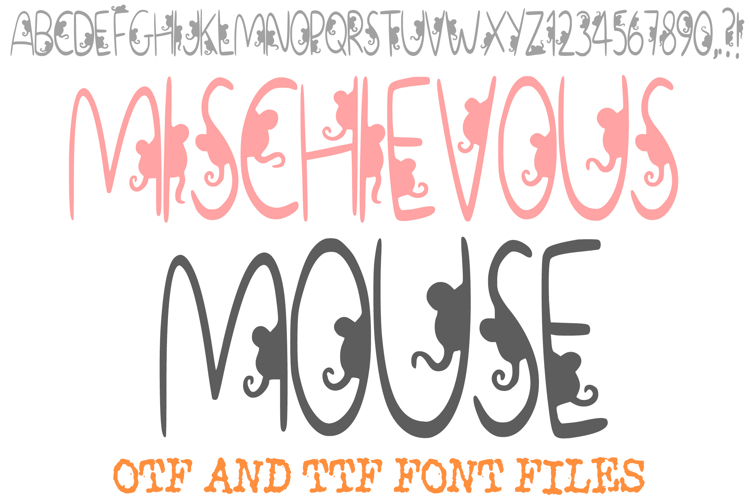
Mischievous Mouse Font Climbing Mice Letter OTF Typeface
Bring a touch of playful storytelling to your next project with the Mischievous Mouse Font! This unique display typeface features elegant, thin-line letters and numbers that serve as a playground for tiny, hand-drawn mouse silhouettes. From scurrying up the "H" to peeking around the "O," these little rodents add a sense of movement and whimsy to every word.
The minimalist aesthetic of the thin typography paired with the detailed mouse poses makes this font incredibly versatile. It is an enchanting choice for children's book titles, nursery wall art, boutique branding, or anyone looking to add a "squeak" of personality to their designs.
Why You’ll Love Mischievous Mouse Font:
Unique Character Interaction: Every letter (A-Z) and number (0-9) features a different mouse silhouette in various poses like climbing, sitting, or peeking.
Elegant & Minimalist: The tall, thin letterforms provide a sophisticated contrast to the playful animal details.
Clean Silhouettes: The sharp black-and-white silhouettes ensure the font looks great in digital designs or as physical cutouts.